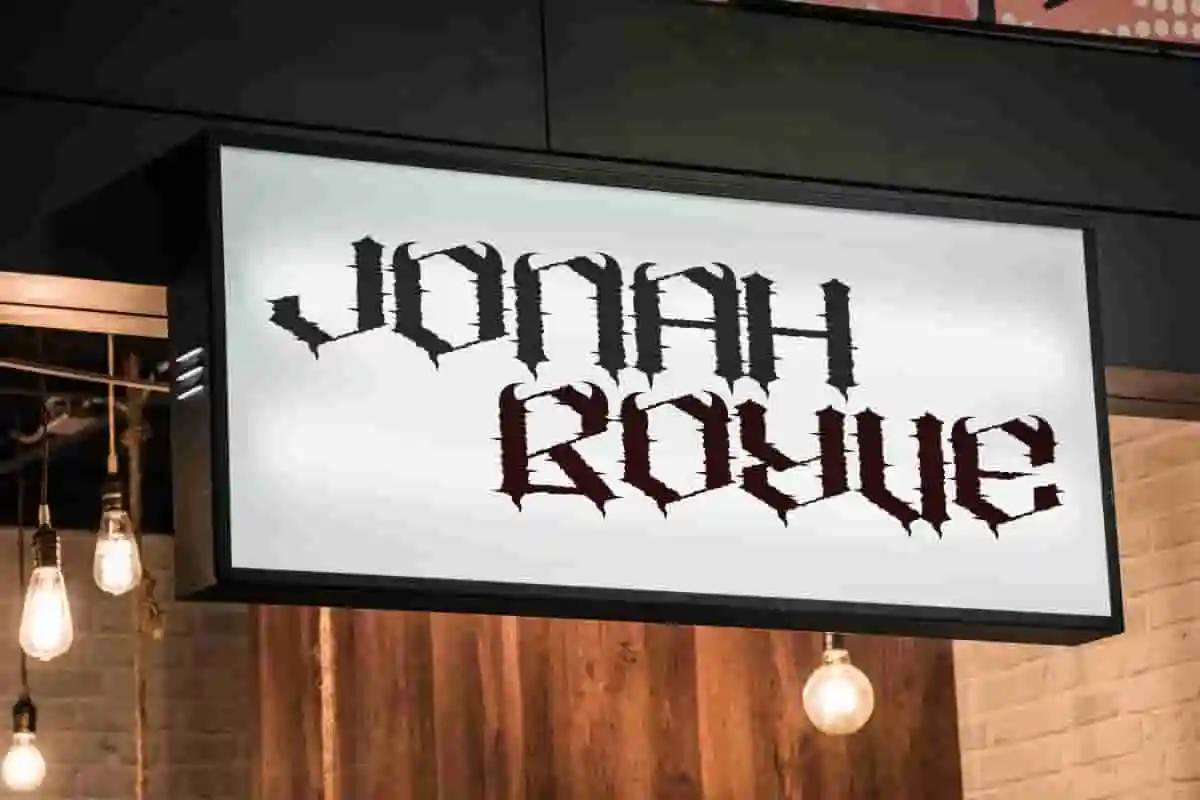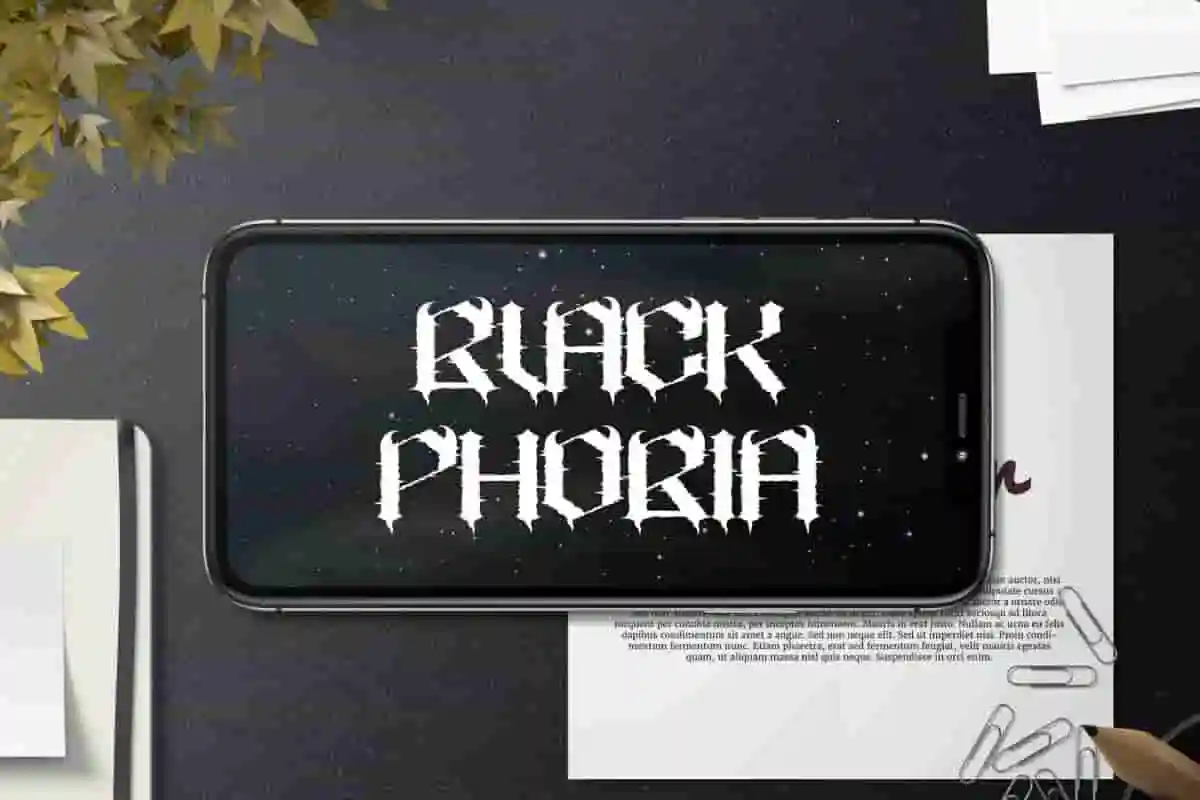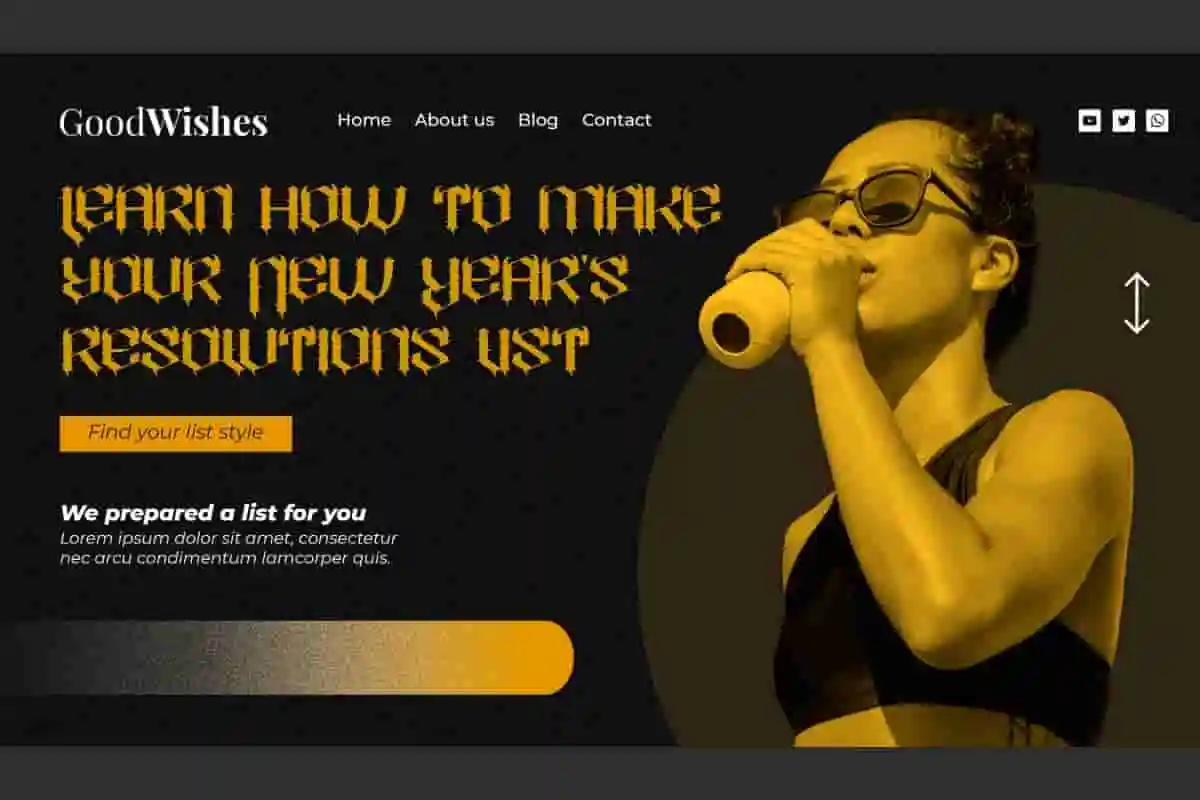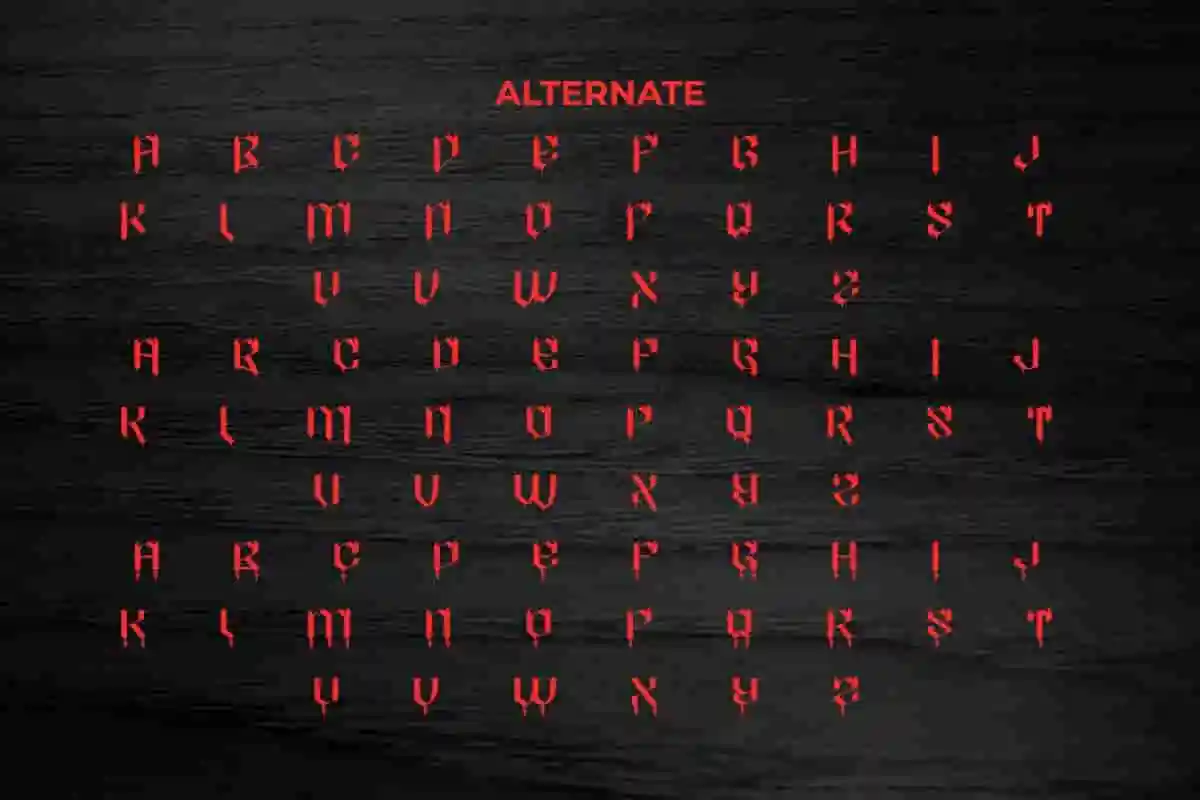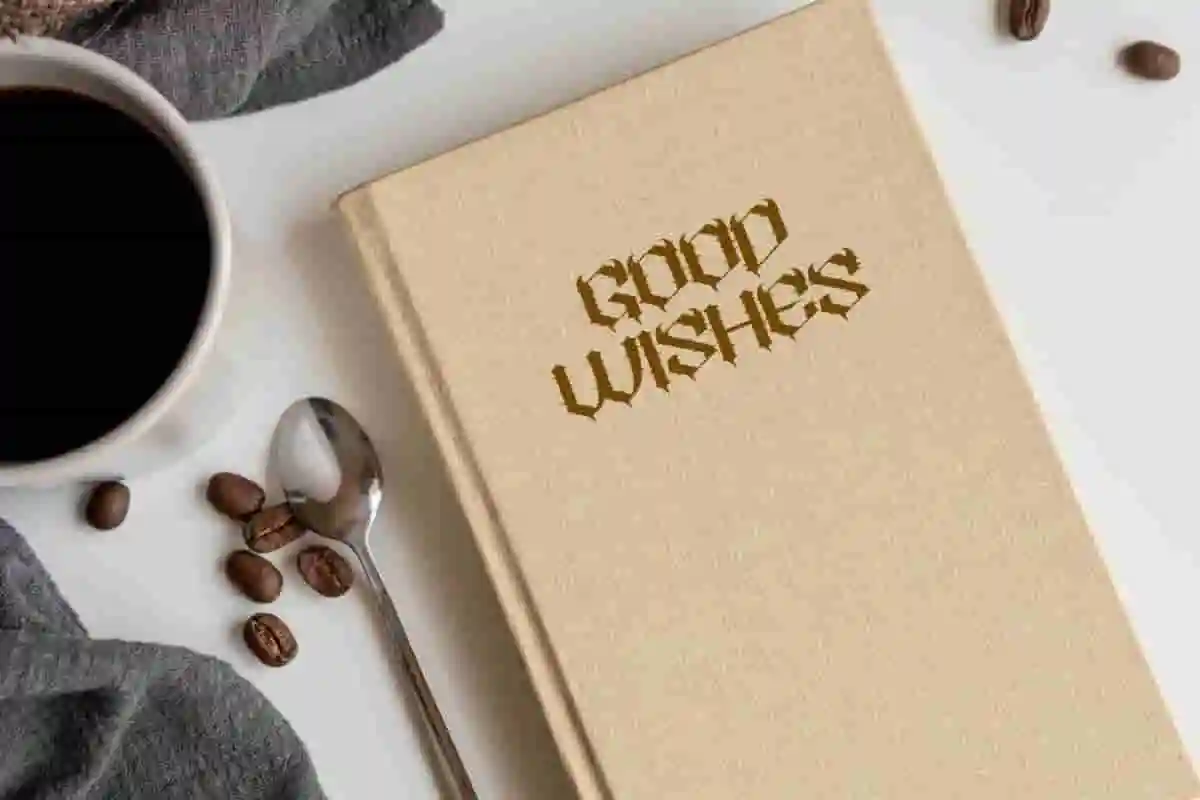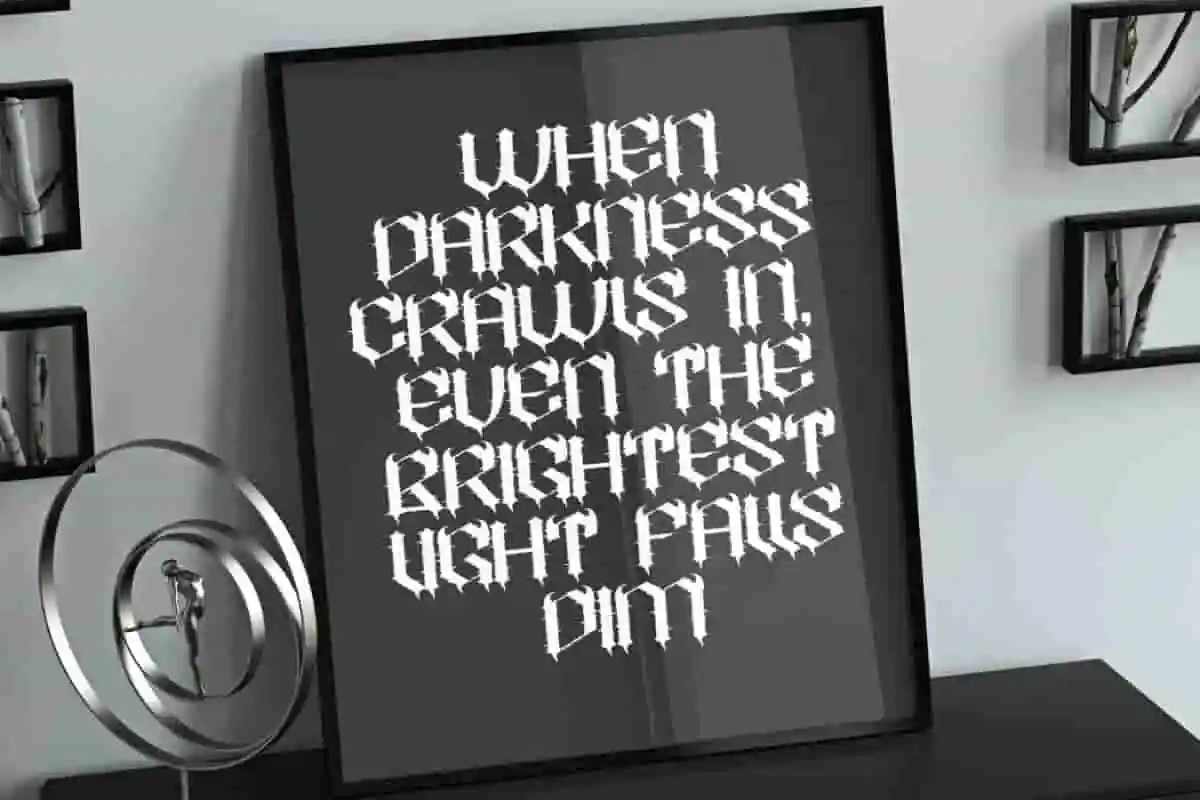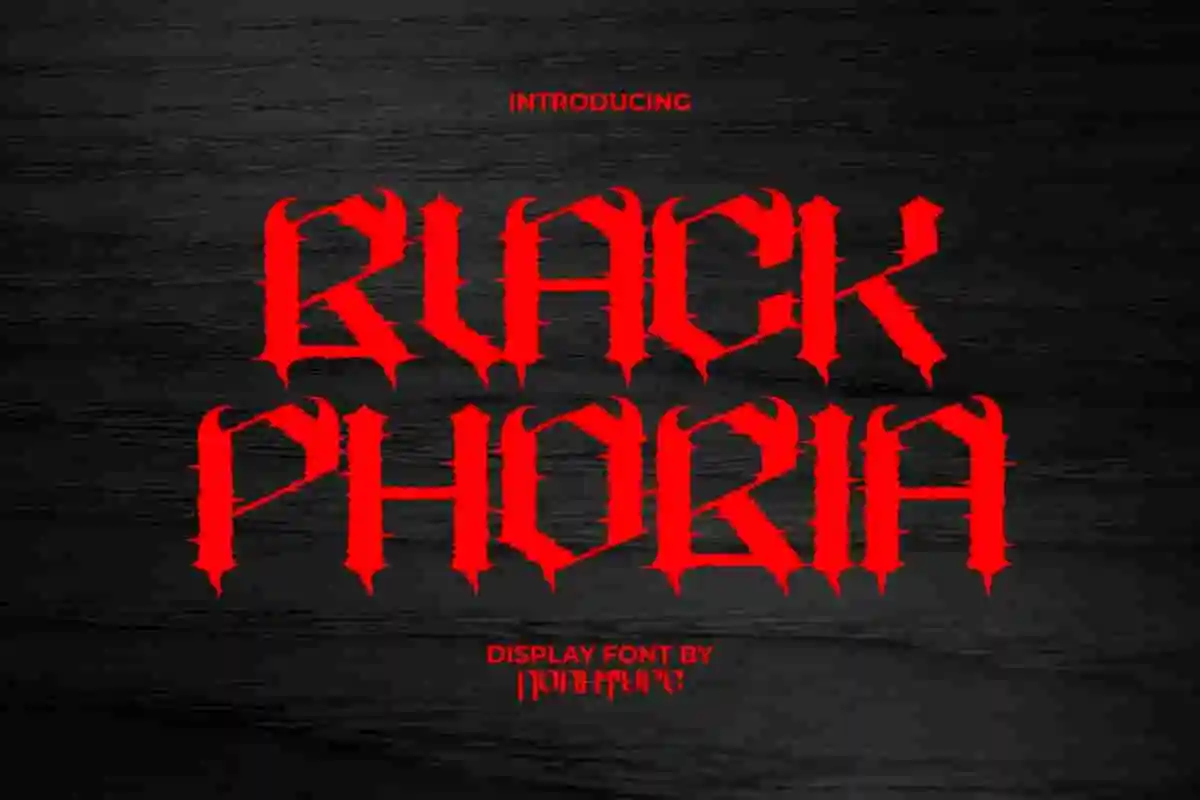
Black Phobia Font is a horror display font with a black metal theme of gothic blackletter letterforms, created by NoahType. This font has a scary look with the addition of small horns on the top of some letters. It will be perfect for any designs, such as brand image, cover, custom design, invitation, label, marketing material, menu, poster, printing, product packaging, quotes, signage, website, and many more!
Black Phobia Font includes full set of ALL CAPS for Uppercase and Lowercase Basic Characters in different sizes, Numerals, Punctuation, and Symbol. This font also have Alternate characters that will give awesome touch and also a perfect choice for many industries, such as accessories, advertising, art, café, game, fashion, movie, printing, publishing, etc.